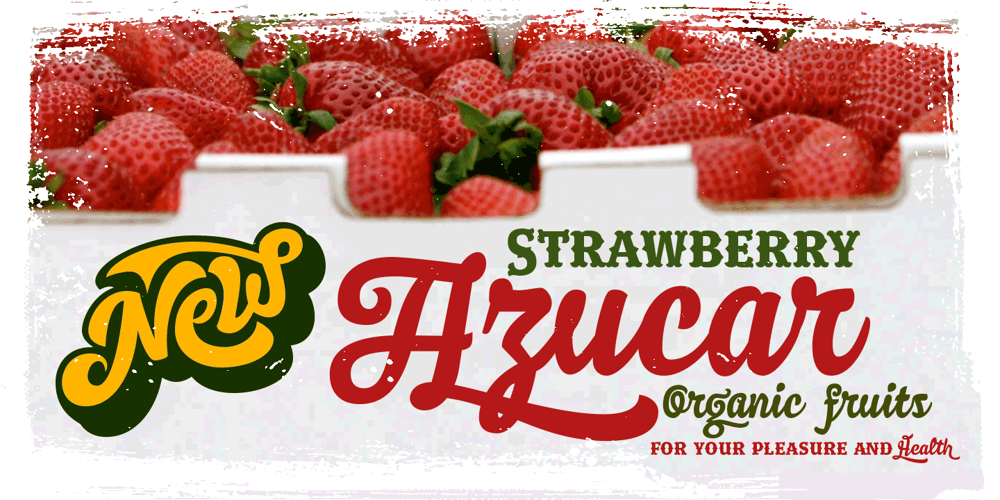
Nemocón
Nemocón font
Nemocón Font Family was designed by Carlos Fabián Camargo Guerrero and published by Andinistas. Nemocón contains 6 styles and family package options. Nemocon is a display font family designed by Carlos Fabian Camargo G. Nemocon It is ideal for making attractive messages. Nemocon has over 2200 glyphs distributed in 6 files OT designed from handmade lettering and usability testing. • Nemocon Script (1382 glyphs): based on the rotation of a flat tip brush. Its letters correspond to the uninterrupted calligraphic logic, as well as similar ingredients as the ones used in font Brush Script by Robert E. Smith, created for the American Type Founders in 1942. • Nemocon Tuscan (375 glyphs): Inspired by representative types of wood from the 19th century, specifically speedball brawny Tuscan capitals with serifs fishtail shaped. • Nemocon Catchwords (115 glyphs) + Nemocon Catchwords Shadow (115 glyphs): categorically inflated words with and without shadows, to accompany, highlight and prioritize. • Nemocon Dingbats (114 glyphs) + Nemocon Containers(150 glyphs): unconventional pictograms consisting warm and comforting thoughts designed to highlight words or phrases which needed multicolored illustrations or drawings in black and white.